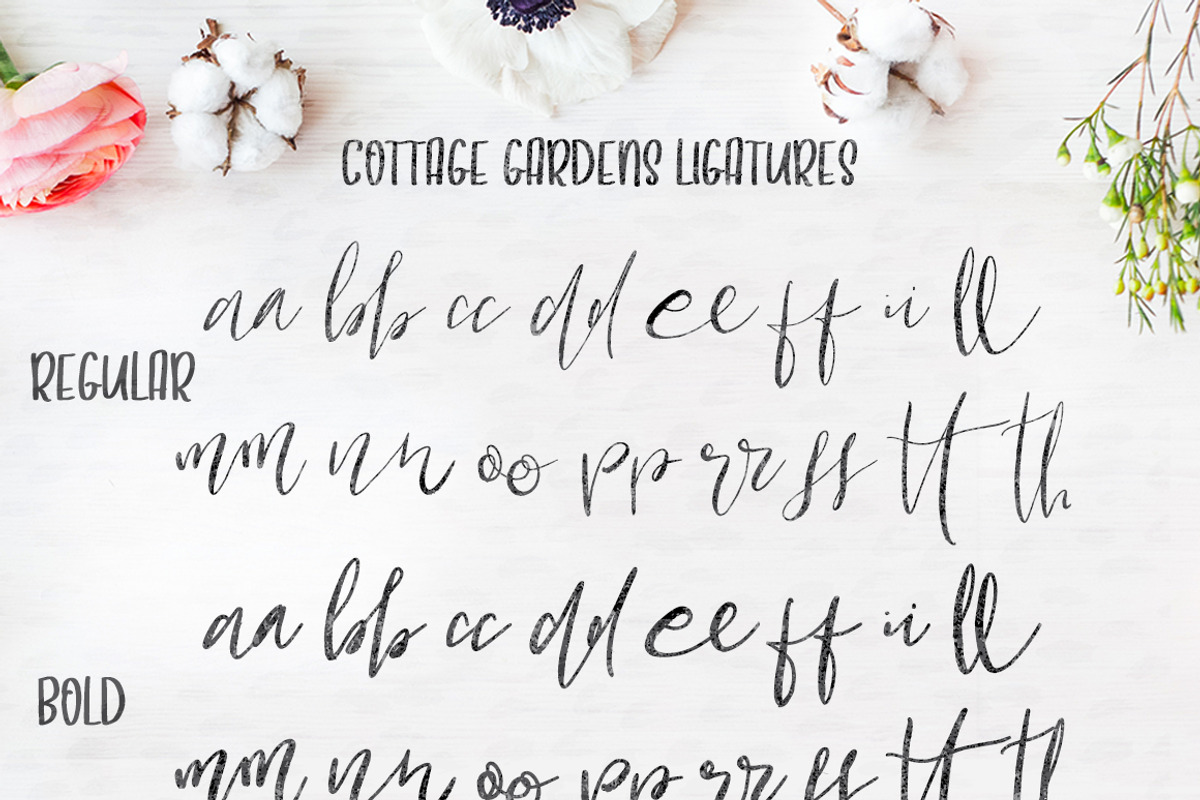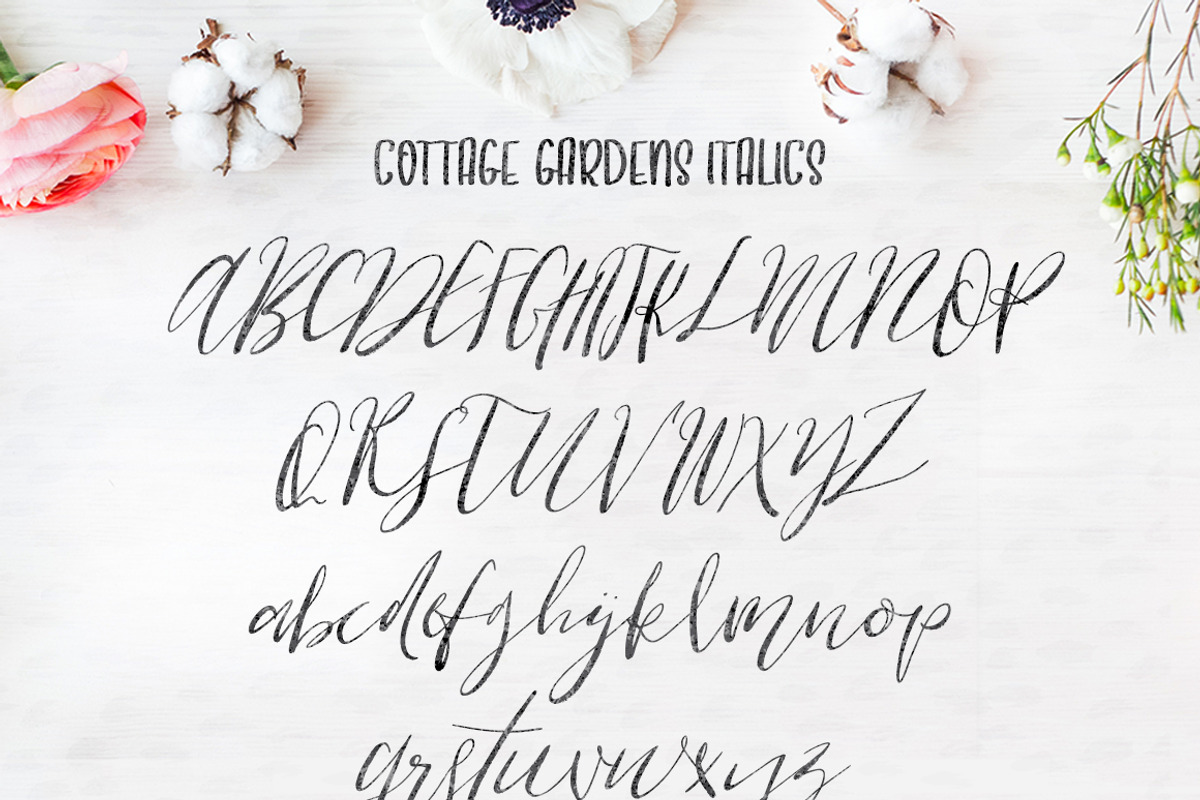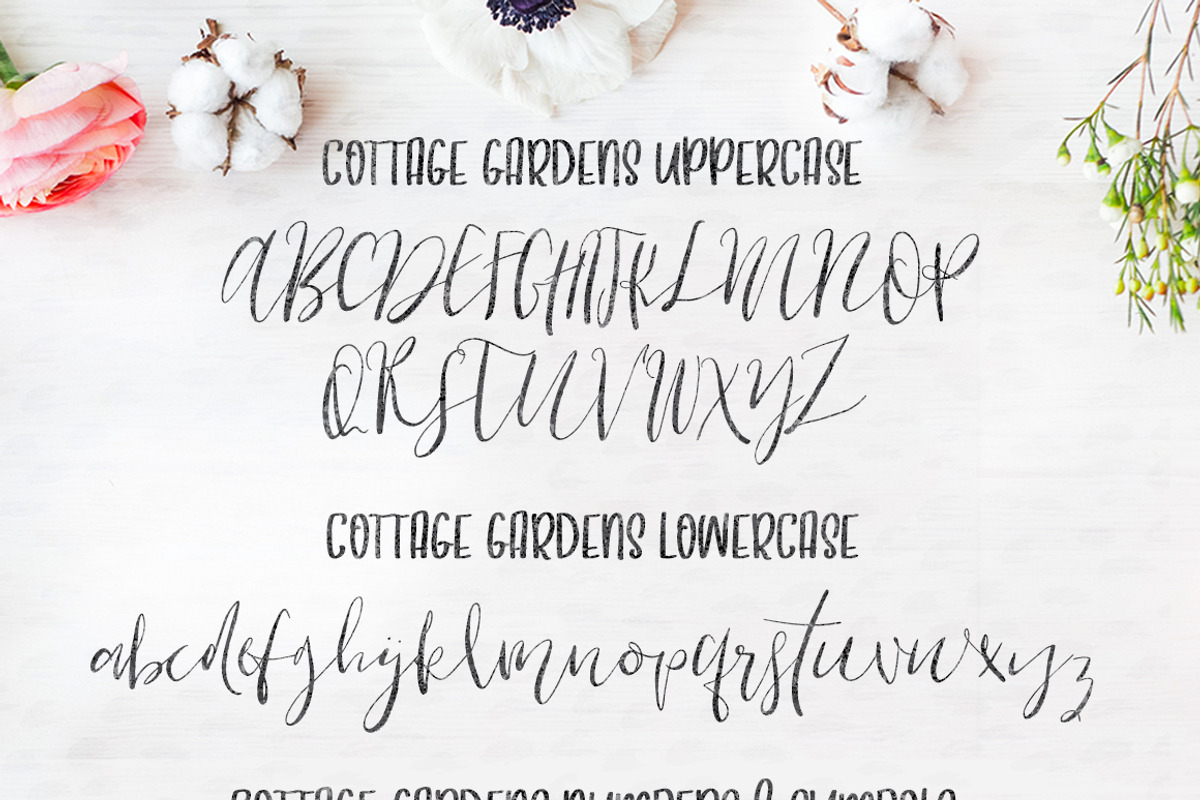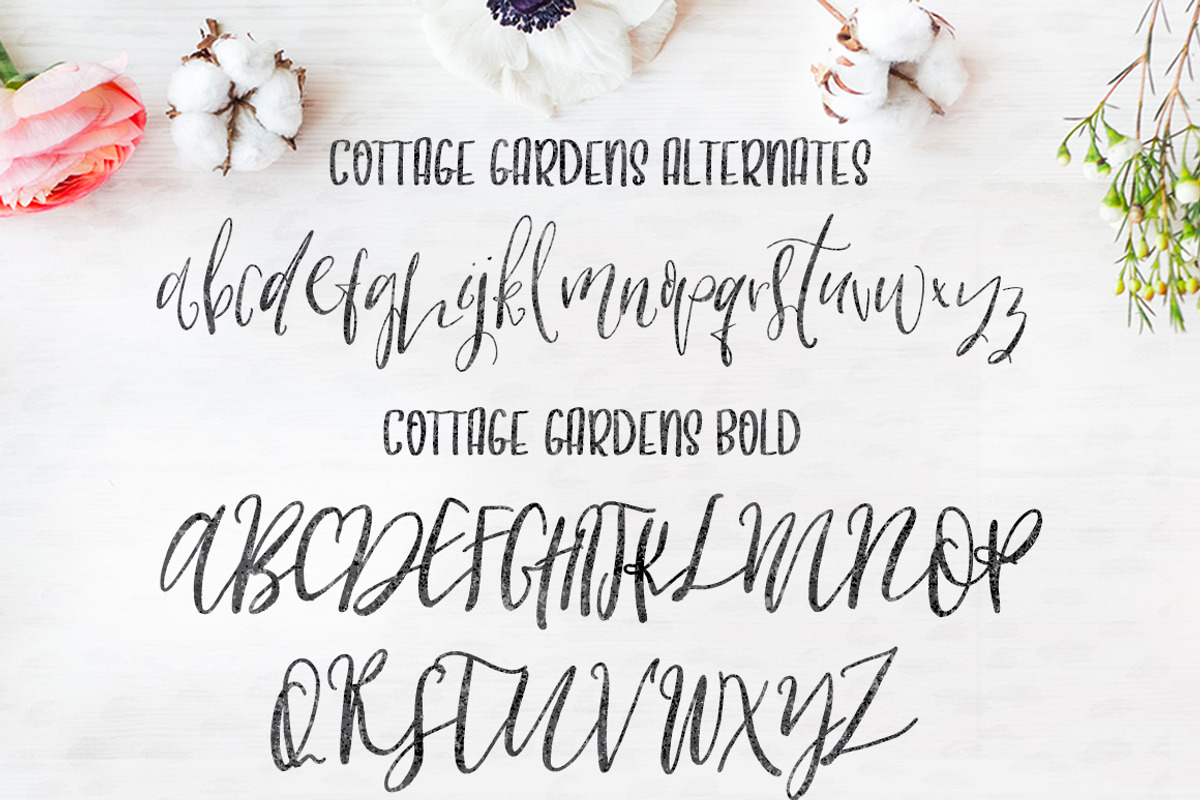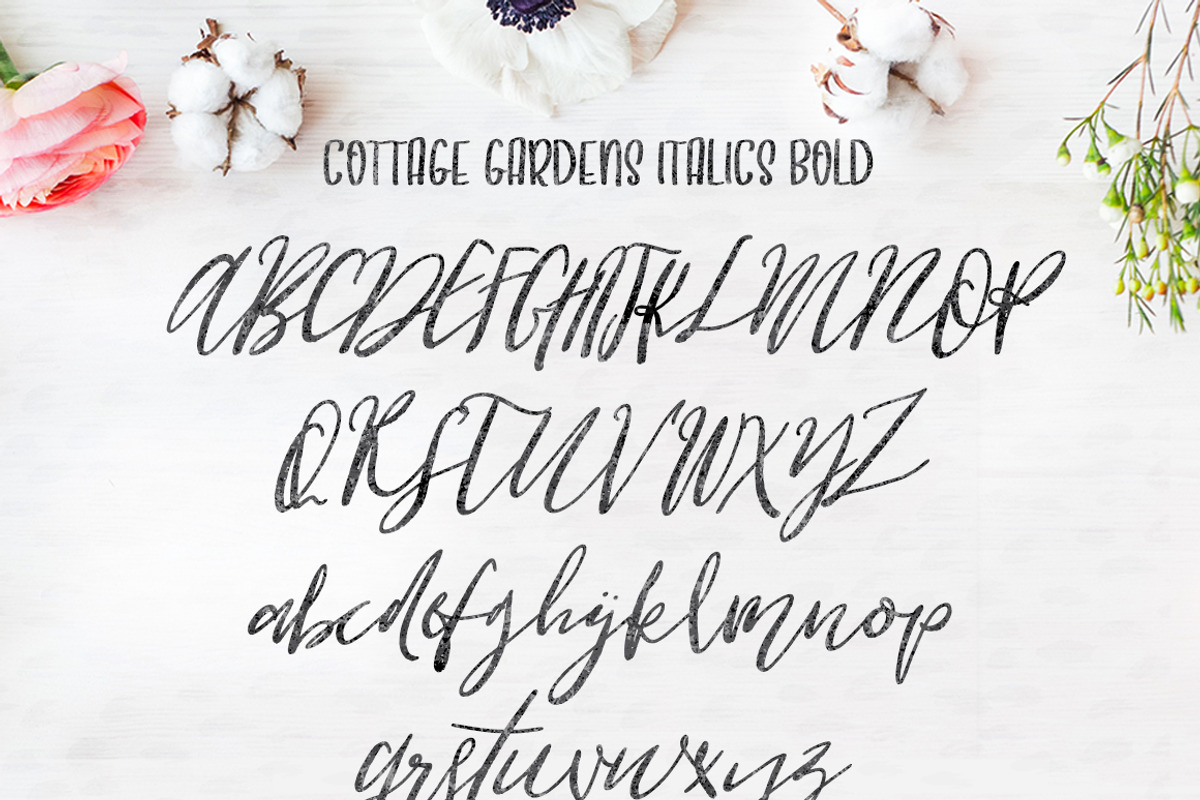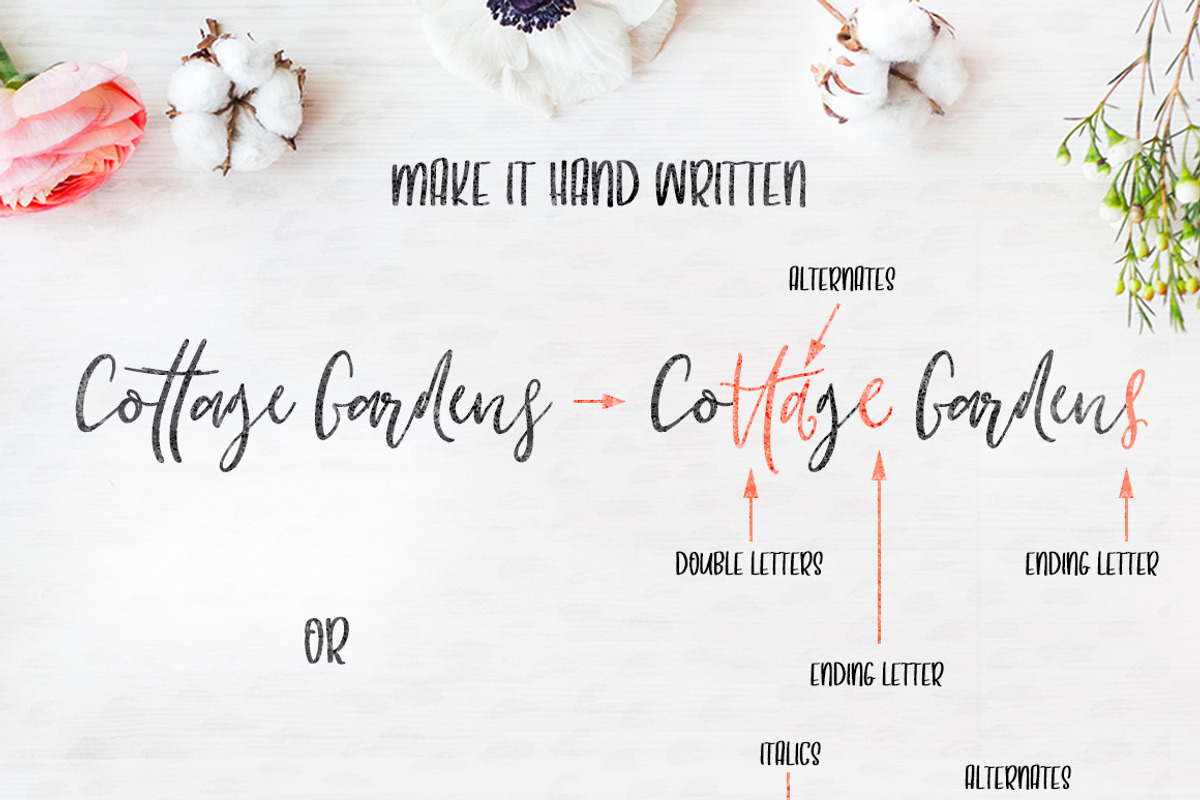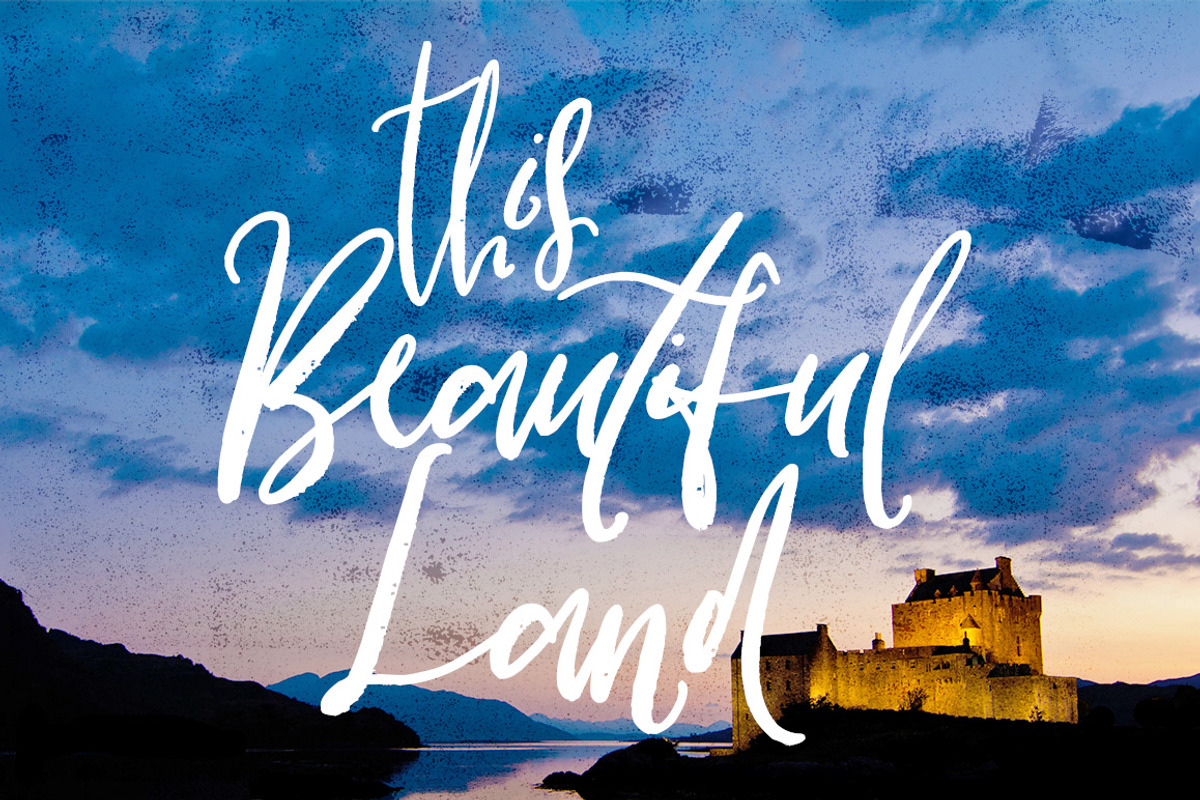
Cottage Gardens Script Font Duo
Introducing the newest font family for Creativeqube - Cottage Gardens! A gorgeous hand drawn font with the perfect farmhouse style charm!
This font family is a duo of script and caps, with Bold and Italic versions of the fonts, and then an alternates font for the script, plus bold and italics versions of the alternates!
So many options in 1 font family!
The alternates are included in the regular script font as ligatures for ending words, but I've also included it as an extra font file so those without access to open type features can still use these awesome letters. Plus you can swap letters around in the middle of your words too to add more character!
Cottage Gardens supports international languages.